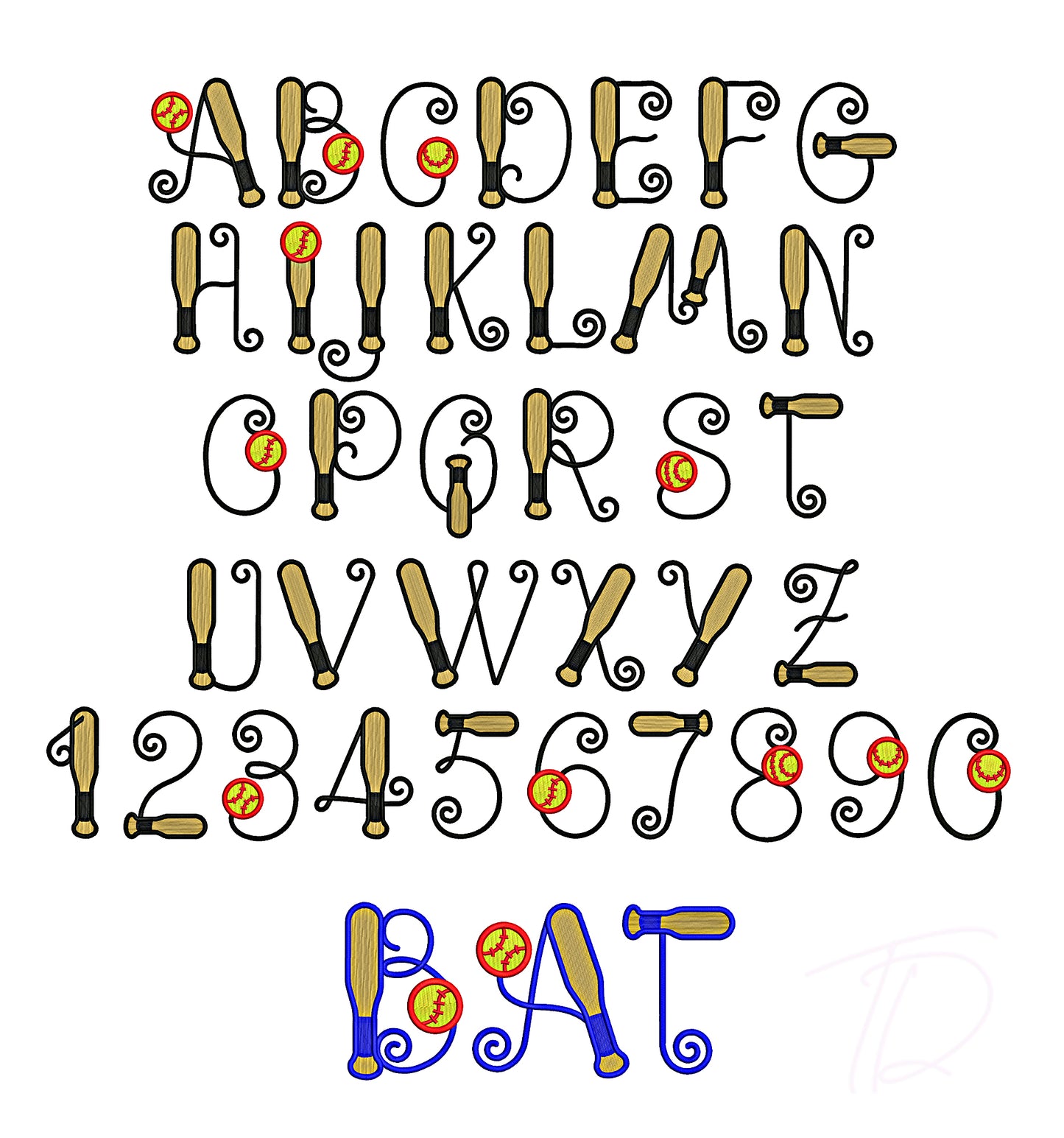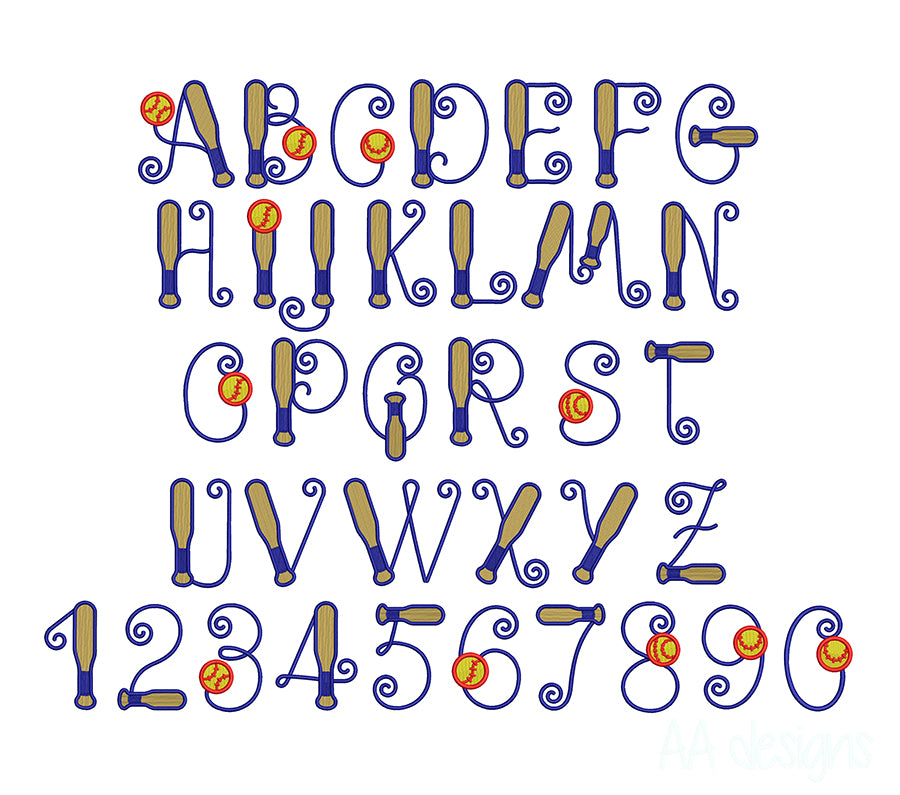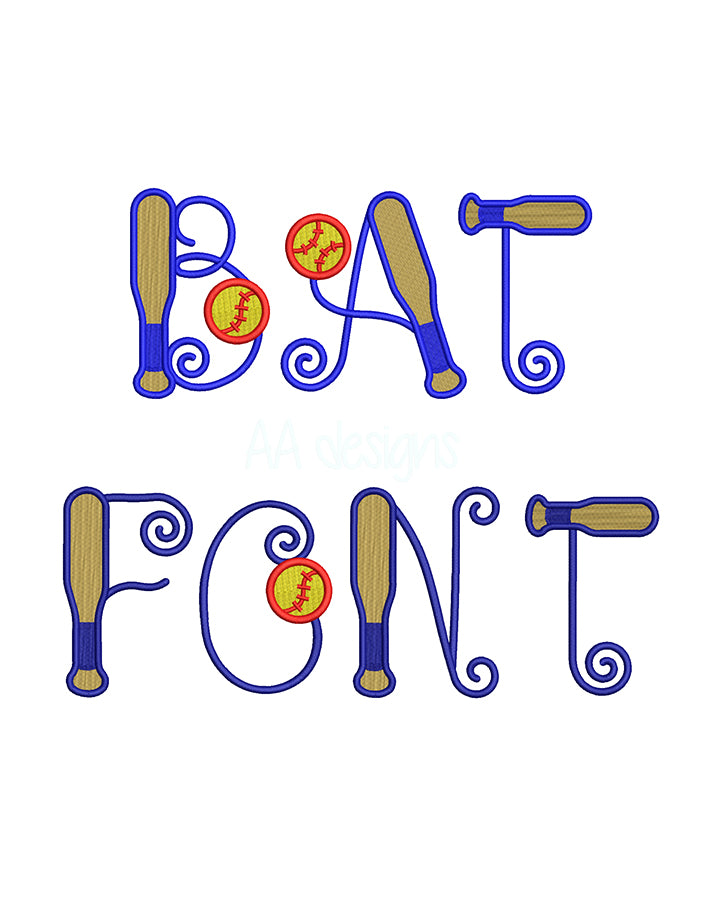
Baseball Bat Embroidery Digital Font
Step up to the plate with our Baseball Bat Embroidery Digital Font — a creative, sporty alphabet where each letter is uniquely styled with baseball bat-inspired design elements. A bold, characterful font that's a home run for baseball fans, teams, and gift makers alike.
- Distinctive baseball bat-themed letterforms — bold, fun, and full of diamond personality
- Perfect for team names, player names, jerseys, caps, bags, dugout towels, and fan gear
- Great for youth leagues, adult softball teams, and baseball-themed gifts
- Optimized stitch paths for clean, detailed results on twill, canvas, fleece, and more
Whether you're personalizing a Little League uniform or creating the ultimate baseball fan gift, this font knocks it out of the park — every single stitch.